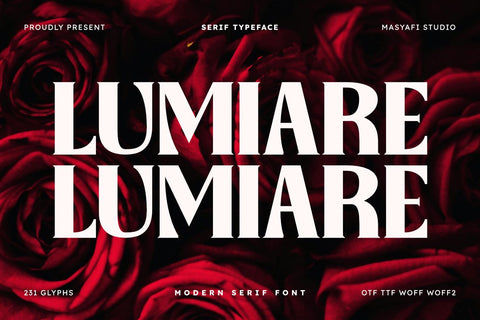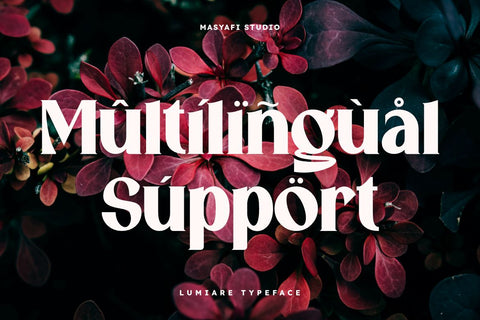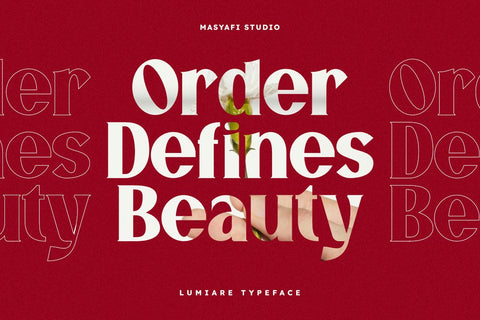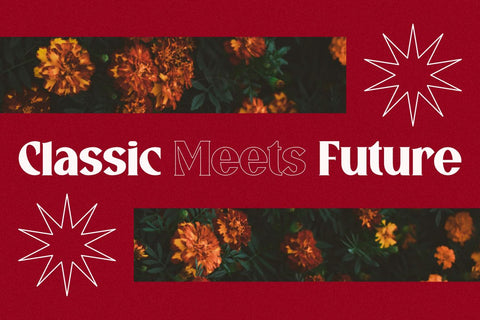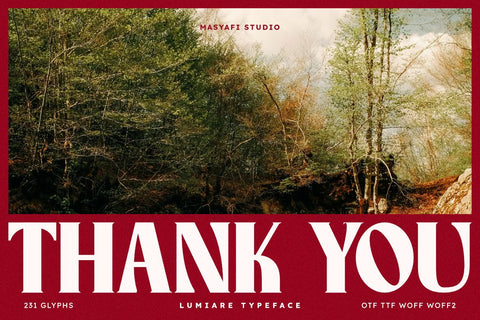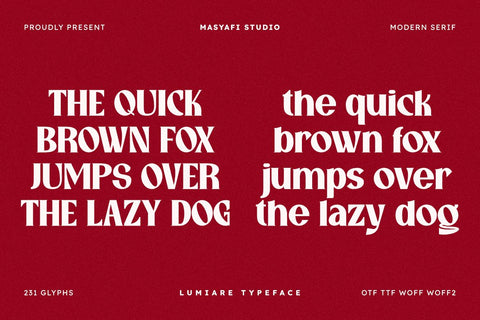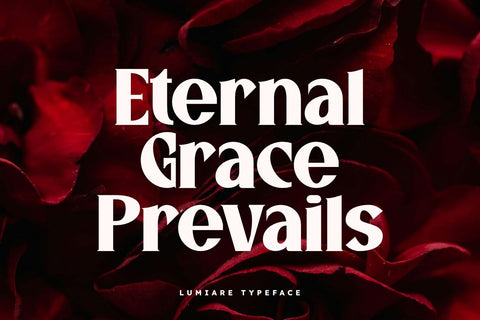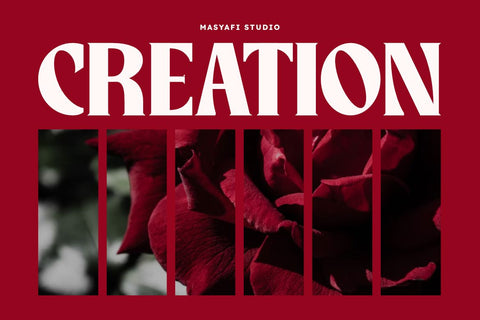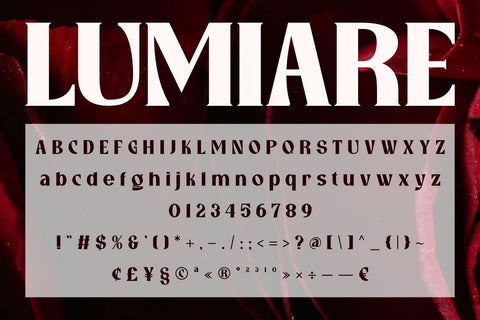
Lumiare – Modern Serif Display Font
Lumiare is a modern serif display font with strong vertical contrast and sharp, elegant letterforms. Designed for impactful titles and branding, this typeface delivers a bold and sophisticated look suitable for magazine covers, packaging, posters, and logo design.
With its refined structure and expressive serifs, Lumiare works perfectly for both digital and print applications.
Perfect for:
- Logo and brand identity
- Editorial and magazine titles
- Packaging and label design
- Posters and display typography
- Invitations and promotional graphics